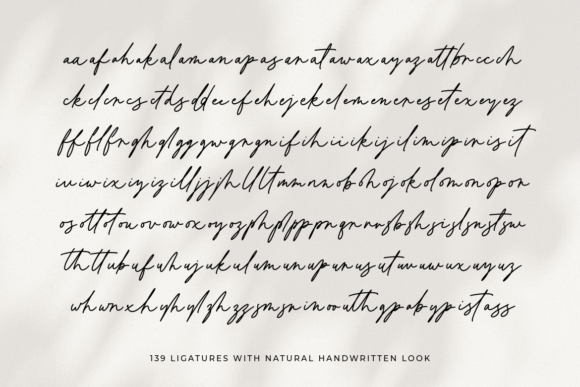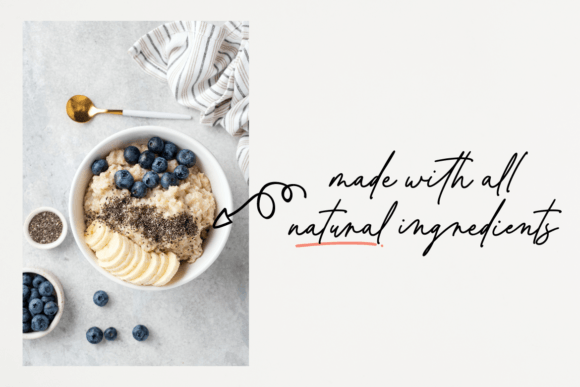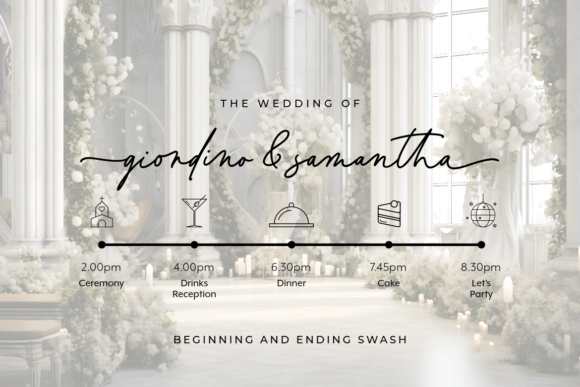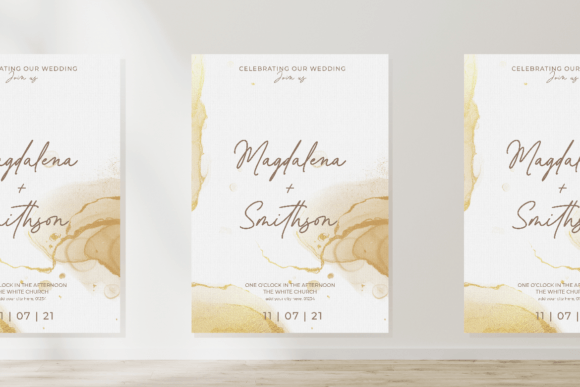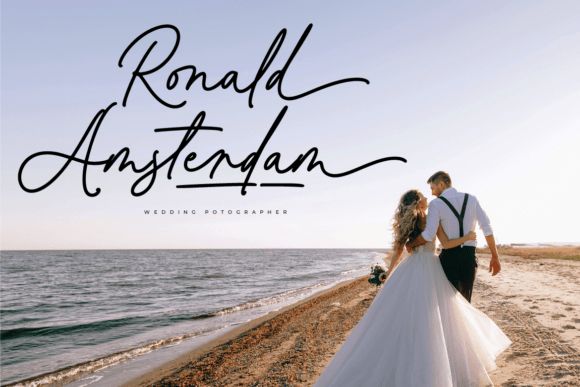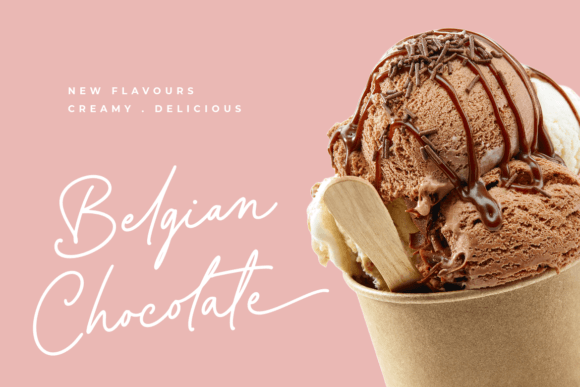
Introduction to Classy Minimalist Font
“Classy Minimalist” is a stunning handwritten typeface that features 139 ligatures for a natural and sophisticated handwritten look.
Its beauty is perfect for weddings, Valentines, invitations, branding, quotes, and more Plus, it supports multiple languages, making it perfect for a variety of design needs.
Key Features of Classy Minimalist Font
Why Choose Classy Minimalist Font?
Classy Minimalist Font offers exceptional quality and versatility, making it a valuable addition to your design toolkit. Whether you’re creating for personal projects or commercial use, Classy Minimalist Font delivers professional results.